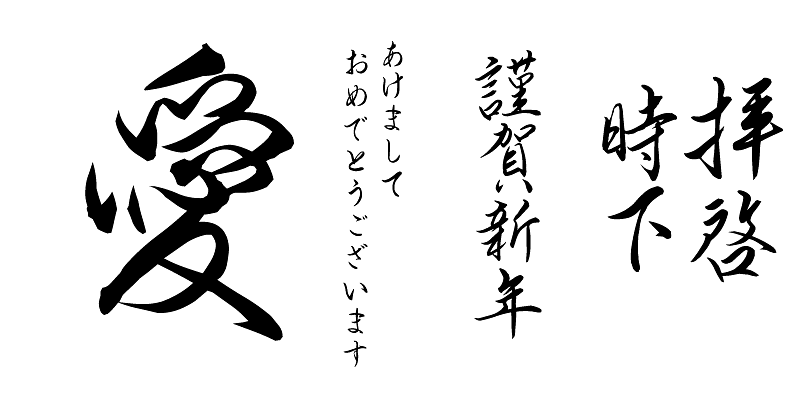
This typeface is a Gyosho-brush-script typeface with letter forms created by hand, character by character, by the calligrapher, Koran.
The typeface is characterized by its beautiful curves, and will be effective for use in posters, signboards, menus and stationery, etc.
This series of fonts contains original hand-written Japanese typefaces based on pen calligraphy released in 2002. With a warm-hearted look, these fonts will draw the reader’s eye to key points of a design.